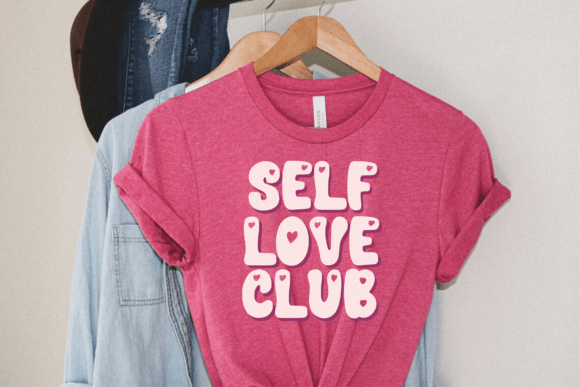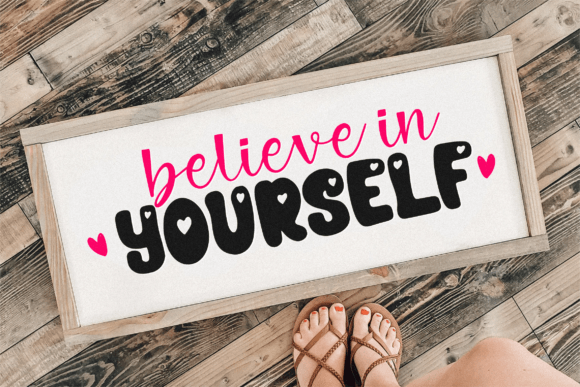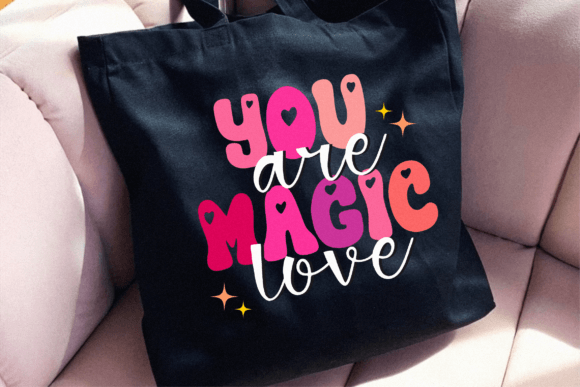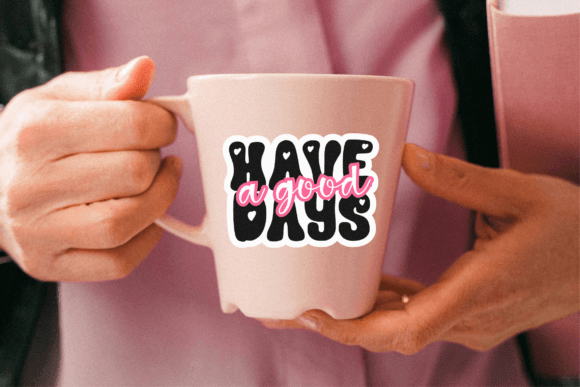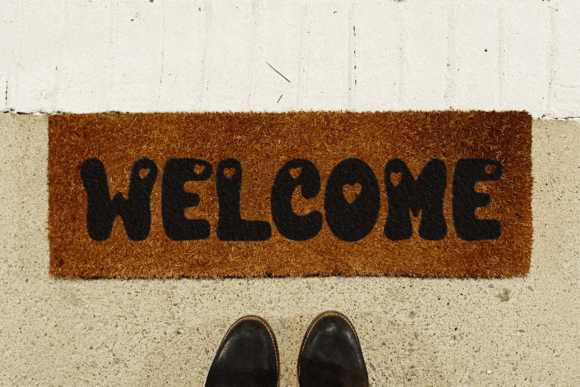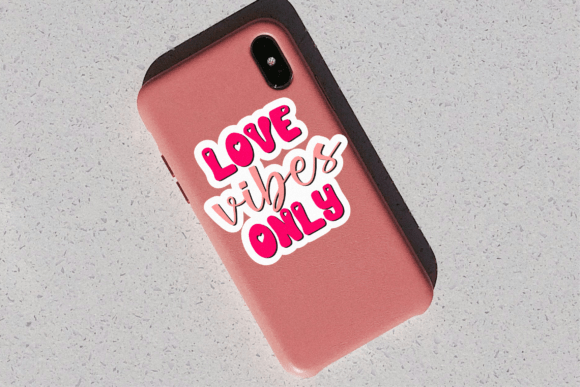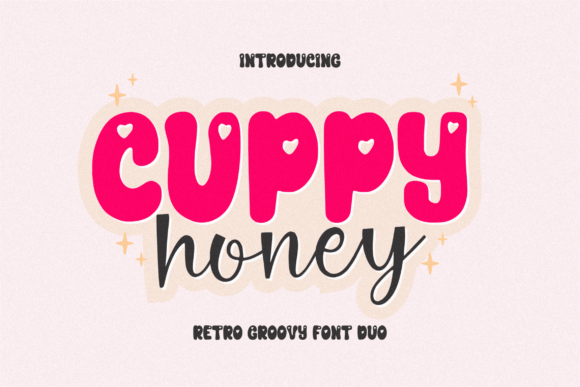
Cuppy Honey Font: The Ultimate Retro Groovy Font Duo for Creative Projects
Are you on the hunt for a font that embodies the perfect blend of retro and groovy vibes? Look no further than Cuppy Honey, a fantastic font duo that’s ideal for a wide range of creative projects. In this article, we’ll dive into the wonderful world of Cuppy Honey, exploring its features, uses, and benefits for designers, crafters, and anyone looking to add a touch of nostalgia to their work.
What is Cuppy Honey Font?
Cuppy Honey is a carefully crafted font duo that exudes a retro groovy feel, perfect for those who love the aesthetics of the 60s and 70s. This charming font combination is designed to bring a playful, yet sophisticated touch to various projects, including product packaging, branding, magazines, social media, weddings, and more.
Key Features of Cuppy Honey Font
- Retro Groovy Style: Cuppy Honey boasts a distinctive retro groovy style that’s reminiscent of the 1960s and 1970s, making it perfect for projects that require a nostalgic feel.
- Font Duo: This font comes in a duo, offering two complementary fonts that can be used together to create a unique and visually appealing design.
- Highly Versatile: Cuppy Honey is incredibly versatile and can be used for a wide range of projects, from product packaging and branding to magazines, social media, and weddings.
- Easily Readable: Despite its playful and decorative nature, Cuppy Honey is highly readable, making it suitable for both headlines and body text.
Uses of Cuppy Honey Font
Cuppy Honey’s versatility is one of its standout features, making it suitable for numerous applications. Here are some of the many ways you can use this fantastic font duo:
- Product Packaging: Add a touch of retro charm to your product packaging with Cuppy Honey, making your products stand out on store shelves.
- Branding Projects: Use Cuppy Honey to create a unique and memorable brand identity that resonates with your target audience.
- Magazines and Publications: Bring a groovy vibe to your magazine or publication with Cuppy Honey, perfect for article titles, headings, and highlights.
- Social Media: Elevate your social media presence with Cuppy Honey, using it for post titles, captions, and quotes to grab attention.
- Weddings and Events: Create beautiful wedding invitations, programs, and signage with Cuppy Honey, adding a touch of nostalgia and whimsy to your event.
Benefits of Using Cuppy Honey Font
So, why choose Cuppy Honey for your next project? Here are some benefits that make this font duo an excellent choice:
- Unique and Eye-catching: Cuppy Honey’s retro groovy style ensures that your project will stand out and grab attention.
- Flexibility: With its versatility and readability, Cuppy Honey can be used for both headlines and body text, making it a convenient choice for various projects.
- Support for Various Languages: This font duo supports multiple languages, making it suitable for international projects.
In conclusion, Cuppy Honey is a fantastic font duo that brings a unique blend of retro and groovy vibes to any project. Its versatility, readability, and eye-catching style make it an excellent choice for designers, crafters, and anyone looking to add a touch of nostalgia to their work. Whether you’re working on product packaging, branding projects, magazines, social media, weddings, or just want to express words above a background, Cuppy Honey is the perfect companion.